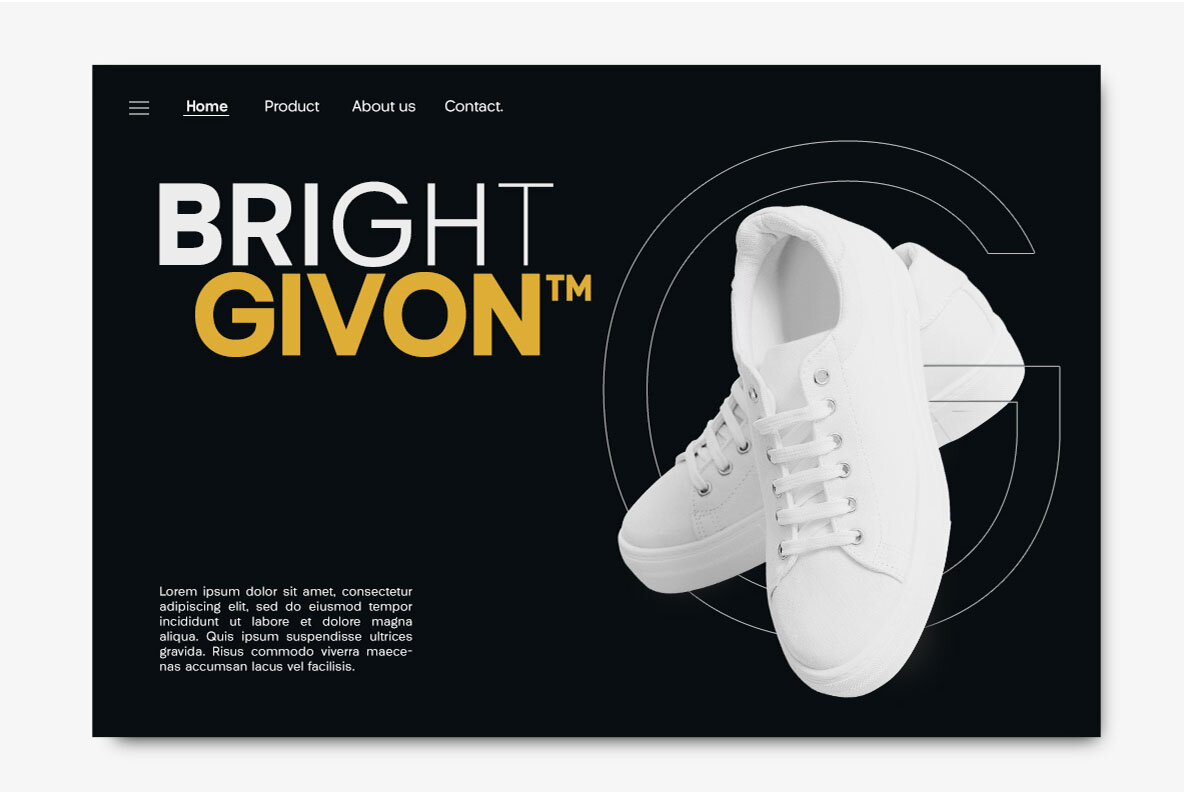
Givonic - Variable Font
Givonic, a geometric sans serif font by Letterhend Studio, delivers a polished finish to an array of projects. Its variable nature ensures flexibility, making it an excellent choice for branding, publishing, titles, book design, magazines, and even UI/UX applications.Givonic: Geometric Sans Serif Versatility